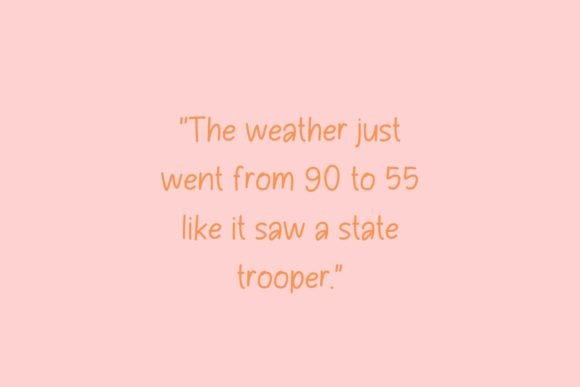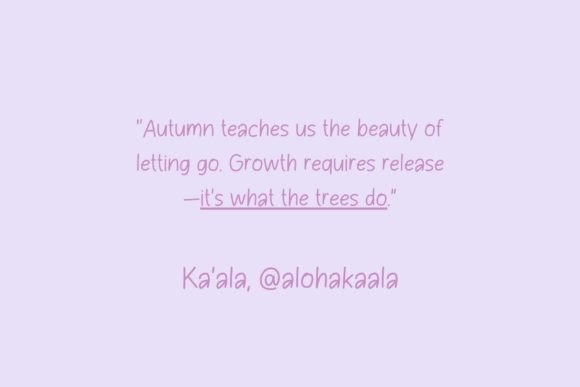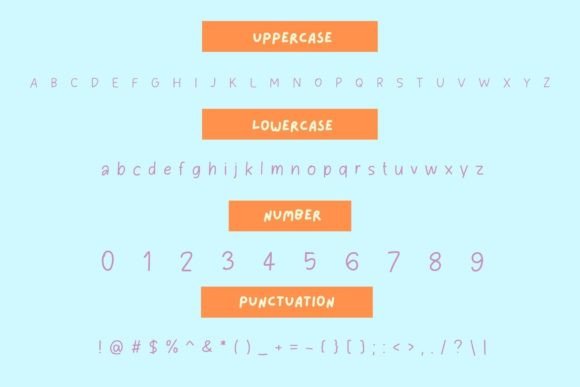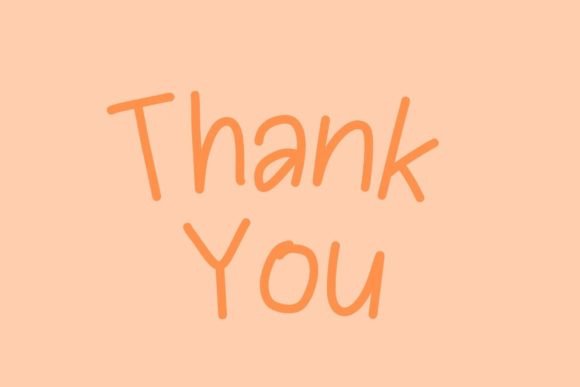
Introduction to Leyla Font
As a designer, there’s nothing quite like the thrill of bringing a creative project to life. It’s the moment when all the pieces come together, and you step back to admire your handiwork. For many of us, this moment is made even sweeter when we get to use a font that truly captures the essence of our vision. Enter the Leyla Font, a charming handwritten font that embodies playfulness and authenticity.
With its unique, hand-drawn style, the Leyla Font is the perfect choice for designers looking to add a personal touch to their work. Whether you’re creating a blog post, logo, or advertisement, this font is sure to elevate your design and make it stand out. Plus, with its transparent background, it’s easy to layer and manipulate to achieve the desired look.
Leyla Font
- High-quality, elegant font suitable for creative projects, offering a unique and sophisticated touch.
- Perfect for use in branding, typography, and creative projects, adding a touch of elegance and sophistication.
Honest Review: Leyla Font
I recently came across the Leyla Font, a free download that has been making waves in the design community. I decided to give it a try and see if it lives up to the hype.
What works well: ✨ The Leyla Font is a high-quality font that’s perfect for creative projects that require a touch of elegance and sophistication. The transparent background makes it easy to overlay on any image or background, giving your design a seamless look.
Here are some of the features that I like:
- Beautiful, modern design that’s perfect for creative projects
- Transparent background for seamless overlay
What’s not so great: ⚠️ The Leyla Font is a bit limited in terms of character sets, which may not be ideal for designers who need to use it for longer texts.
Overall impression: The Leyla Font is a great addition to any designer’s toolkit, offering a high-quality, modern design that’s perfect for creative projects. While it may have some limitations, it’s definitely worth checking out, especially for designers on a budget.
Leyla Font
Leyla Font is ideal for use in branding, marketing materials, and creative projects. It’s also great for designing titles, headings, and other text elements.
To get the most out of Leyla Font, experiment with different font sizes, colors, and combinations. This font is highly customizable, so don’t be afraid to try new things.
Fontin is similar to Leyla Font in its sleek and refined design, but it has a more subtle and understated look. Use Fontin for projects where you need a sophisticated and elegant font without overpowering the design.